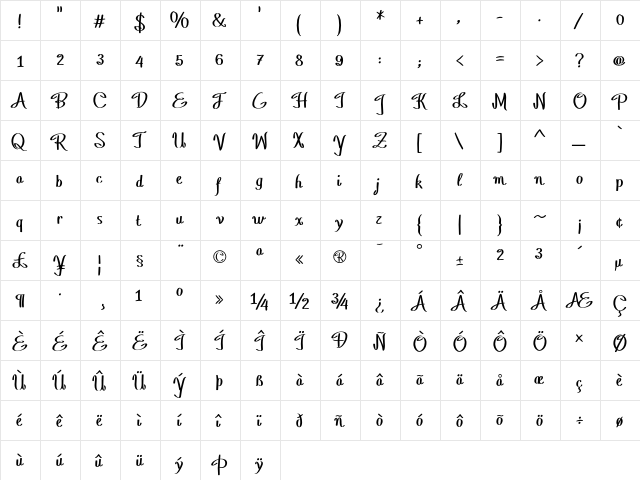
Daiquiri Bold
Design Context for Daiquiri Typeface
Daiquiri is a composed and adaptable typeface that performs quietly and consistently across a wide range of design contexts. Its bold stroke weight gives it real presence on the page.